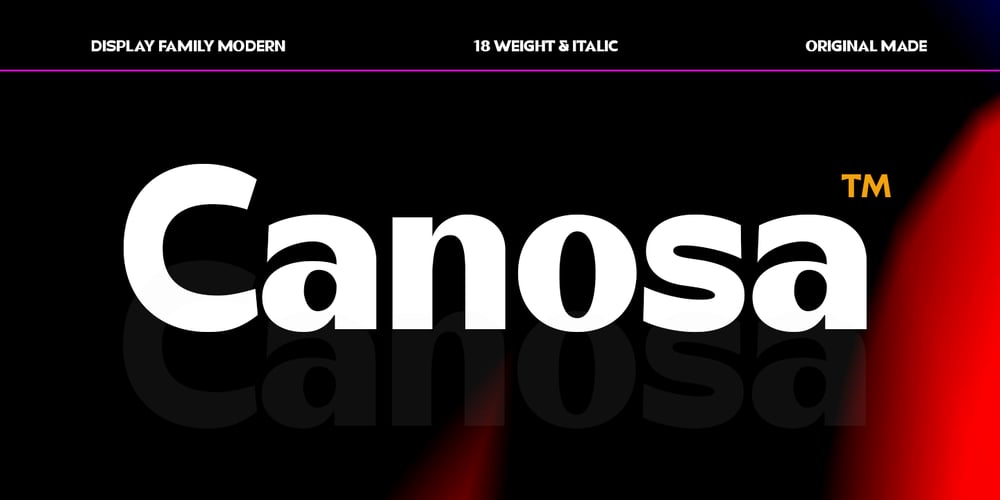
Canosa
Canosa font
Canosa Font Family was designed by Nadia Auliana and published by Propertype. Canosa contains 18 styles and family package options. Canosa is an elegant, modern, and contrasting sans-serif font family. It includes upright and oblique styles, each having seven weights from thin to thick. This is a versatile font perfect for any project, contrasting, modern and easy to read. With it, you can create logos, use them in advertising, packaging, book and magazine covers, titles, descriptions and much more.Download Canosa for your next project today.What’s included?Uppercase CharactersLowercase CharactersNumbers and LigaturesCanosa Family features multilingual Support for multiple languages.